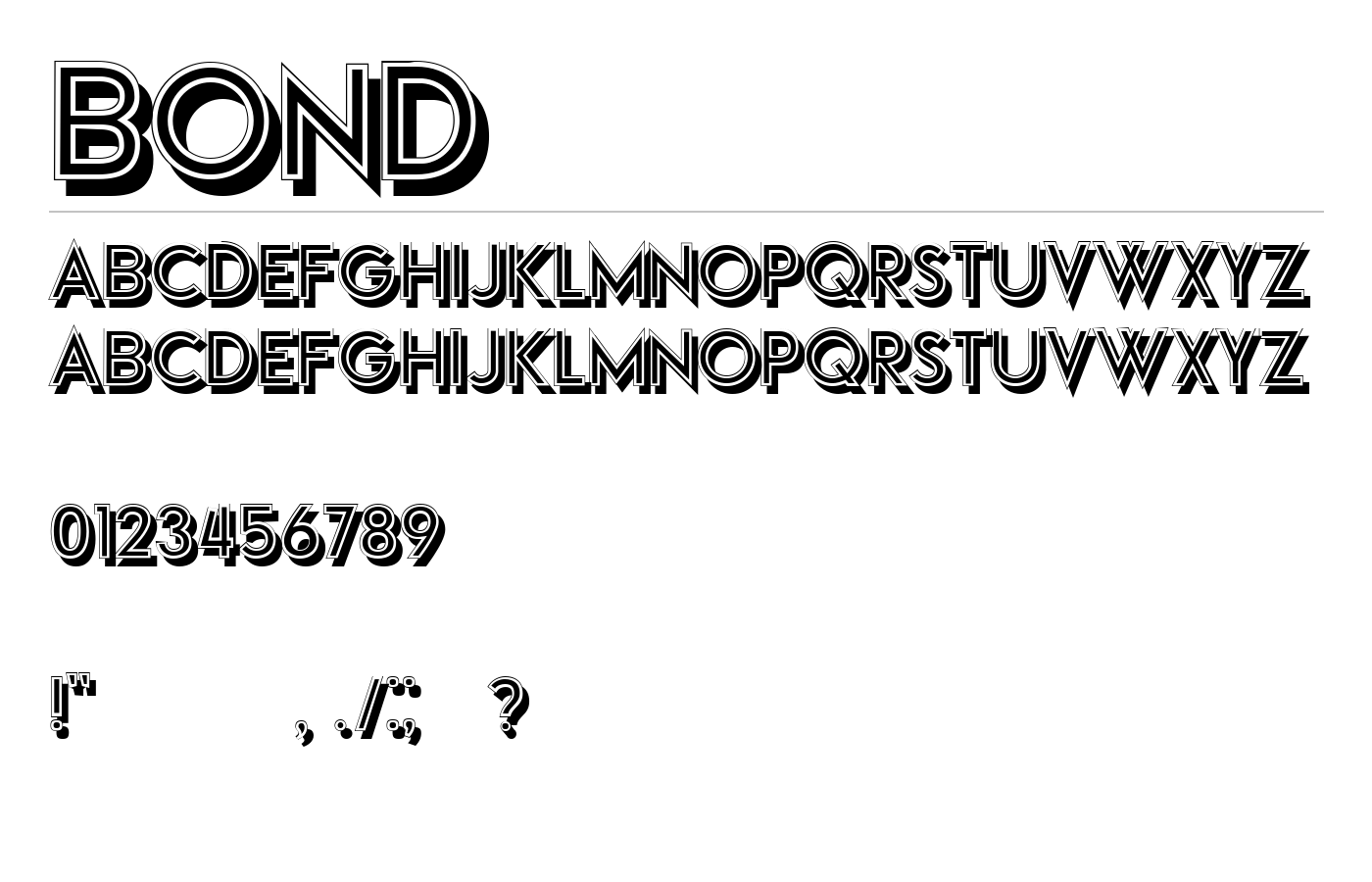
Bond is a bold, all-caps sans serif font with a striking layered shadow effect that gives it a three-dimensional, art deco-inspired vibe. Its geometric letterforms and clean lines convey a sense of modern sophistication and strong visual impact, making it ideal for headlines, logos, and branding that require a stylish, standout presence.
Bond Font
About Bond Font